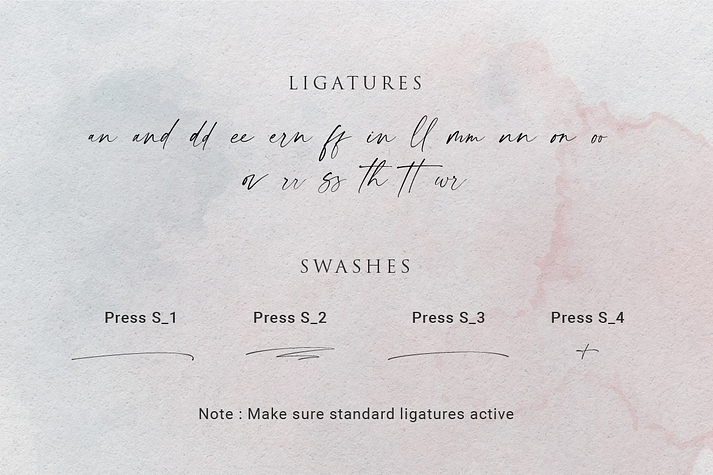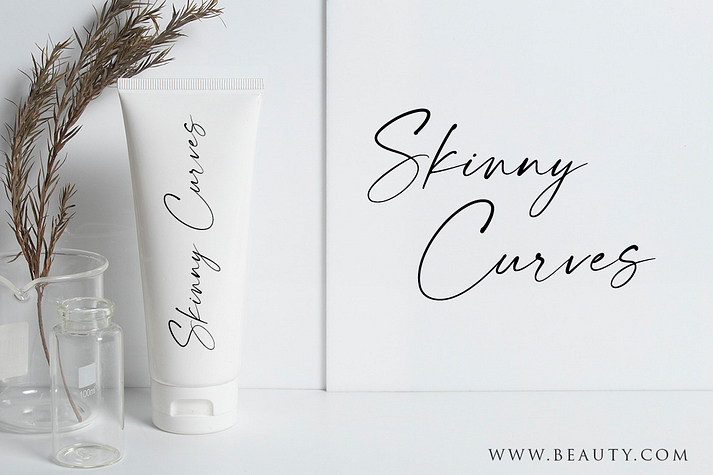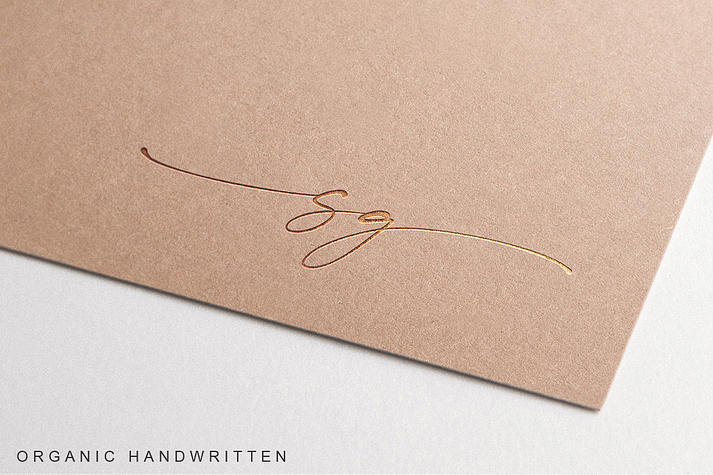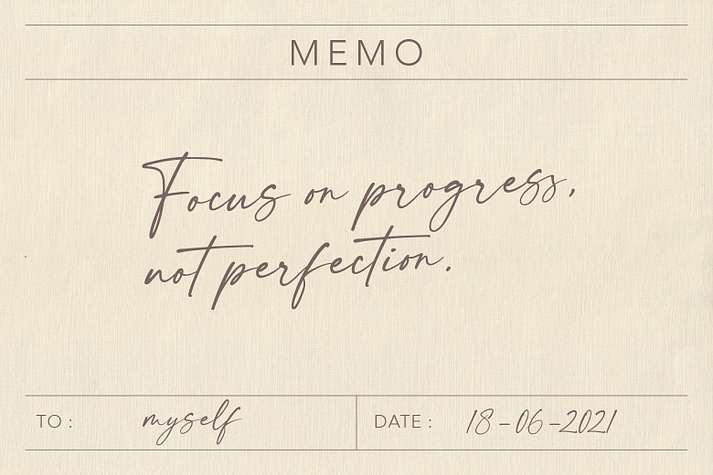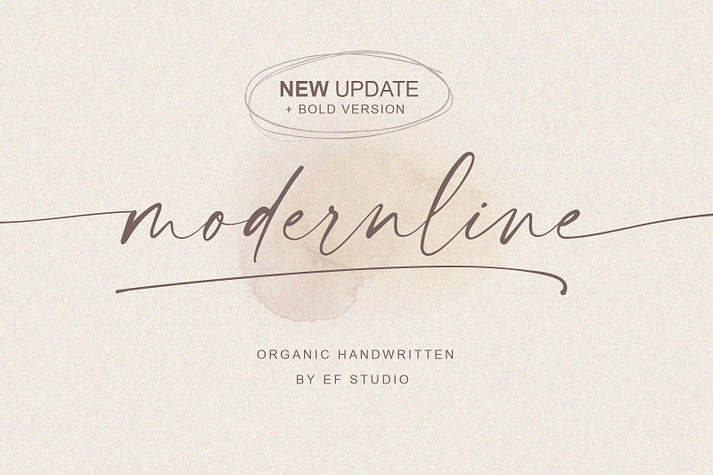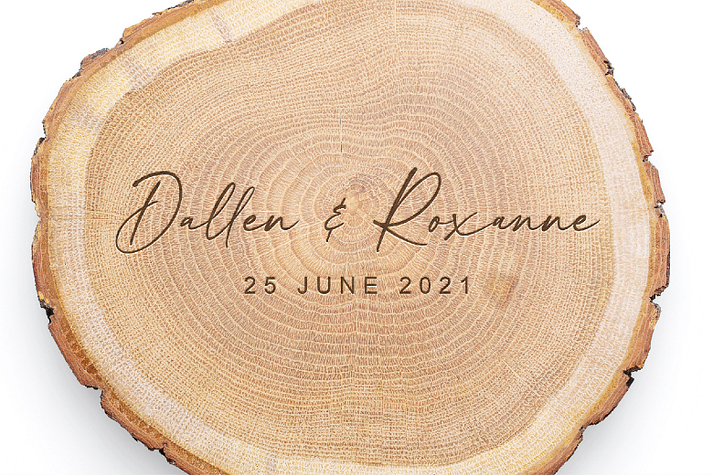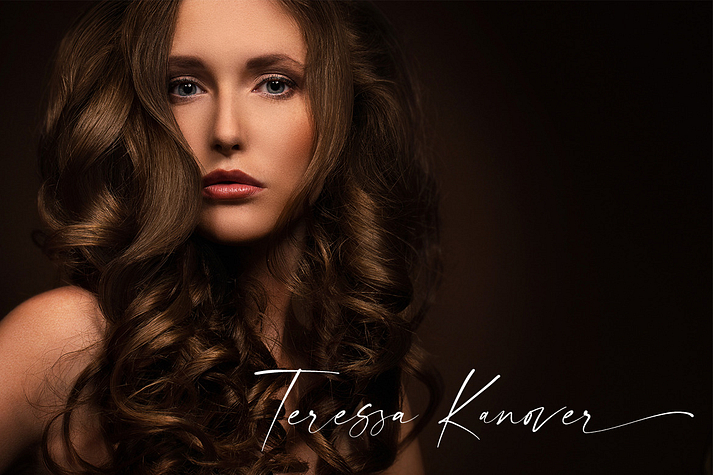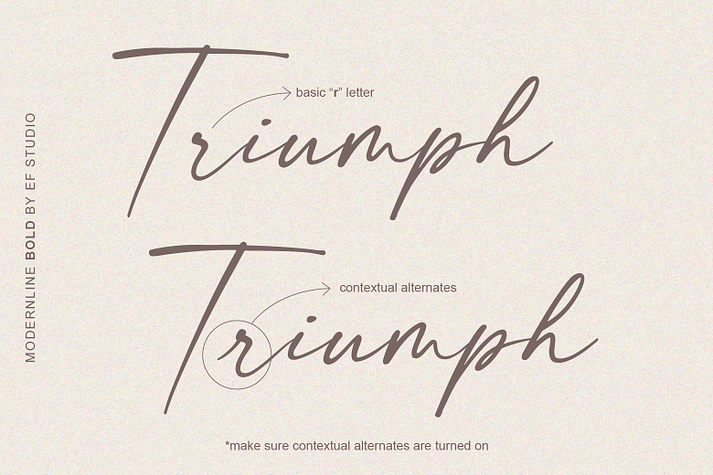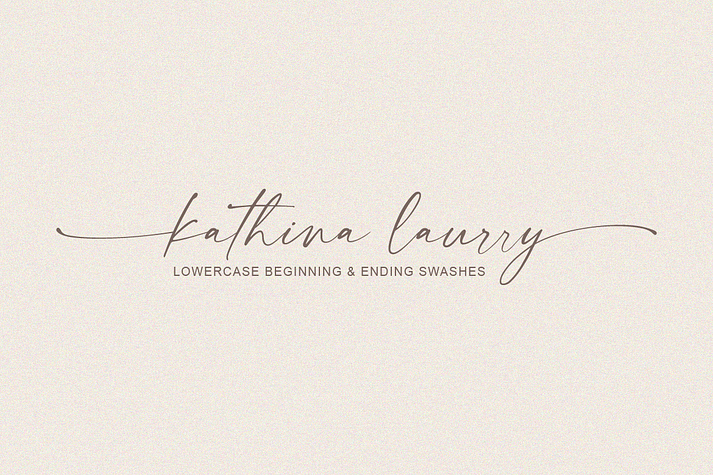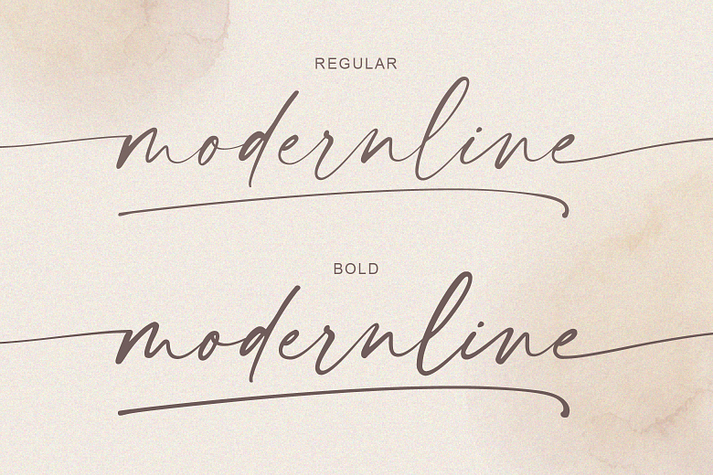
modernline
modernline is a modern calligraphy font family. This typeface has four styles and was published by Ef Studio.
NEW UPDATE : + BOLD VERSION
Modernline is an organic handwritten font that is suitable for branding, signature, wedding invitation, promotion, product packaging, and other needs. This font is modern, simple, but still authentic. You will get full set of lowercase and uppercase letters, numerals and punctuation, multilingual symbols, lowercase beginning and ending swashes, ligatures and extra swashes. Now, Modernline font come with 2 weights, regular and bold.